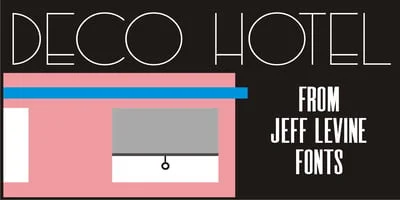
Deco Hotel JNL Font
Deco Hotel JNL Font delivers an elegant and sophisticated typeface inspired by the glamorous Art Deco era of the 1920s and 1930s. Please note that you must purchase this font for commercial use, though you can download it for free for testing purposes.
This luxurious font excels in various design applications including hotel branding, vintage wedding invitations, luxury product packaging, casino signage, jazz club posters, upscale restaurant menus, historic building displays, and premium event programs. Its refined character makes it perfect for projects requiring timeless elegance with nostalgic metropolitan appeal.
Deco Hotel JNL Font is exciting because it captures the opulent spirit of the Jazz Age through meticulously crafted letterforms that echo the geometric patterns and luxurious aesthetics of classic Art Deco architecture. The font embodies the glamour of grand hotels, elegant ballrooms, and sophisticated urban nightlife from the golden age of design.
The Deco Hotel JNL Font family includes multiple sophisticated variations: Regular, Bold, Light, and Ornamental styles. Some versions feature decorative flourishes, geometric embellishments, and period-appropriate ligatures that enhance the authentic Art Deco aesthetic. These family members provide designers with comprehensive options for creating historically accurate and visually stunning compositions.
Whether you're designing for hospitality brands, luxury products, or vintage-themed projects, Deco Hotel JNL Font offers unparalleled elegance and period authenticity. This font transforms modern designs into timeless masterpieces that evoke the glamour and sophistication of the roaring twenties with distinctive Art Deco refinement.